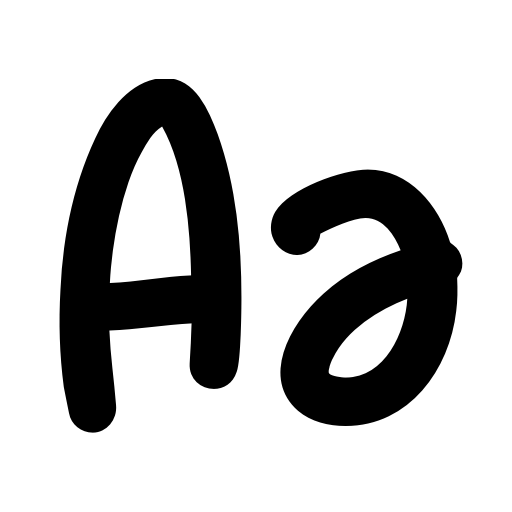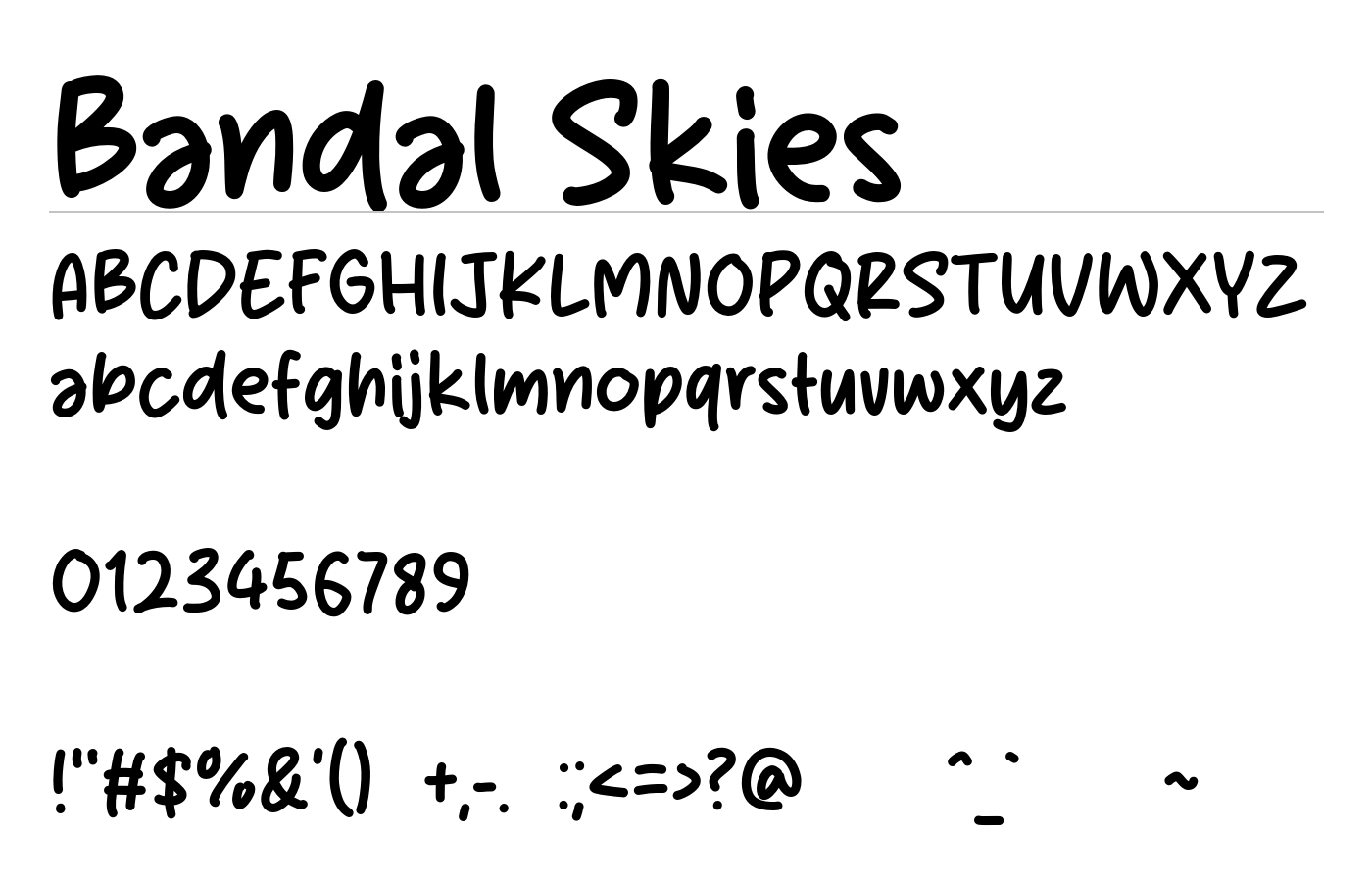
Bandal Skies is a playful, handwritten sans serif font with a casual, friendly feel. Its rounded, slightly irregular strokes and medium weight give it an approachable personality, making it perfect for creative projects, informal branding, and designs that want to convey warmth and individuality. This font works well in headlines, logos, and packaging where a personal touch is desired.
Bandal Skies Font
About Bandal Skies Font